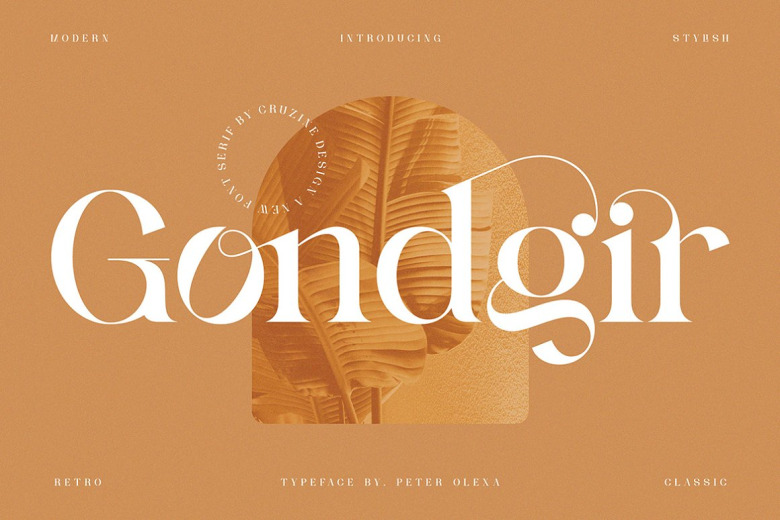
Gondgir Font
Gondgir Serif Font — Trendy, classy & modern serif style font for your fancy projects. Bold, Elegant, Fashion & Classic Style. That’s our Gondgir font feels just right for any branding project you have in mindorts personalities! With lot of alternates and ligatures you can create amazing logo or website header!
Gondgir Serif Font